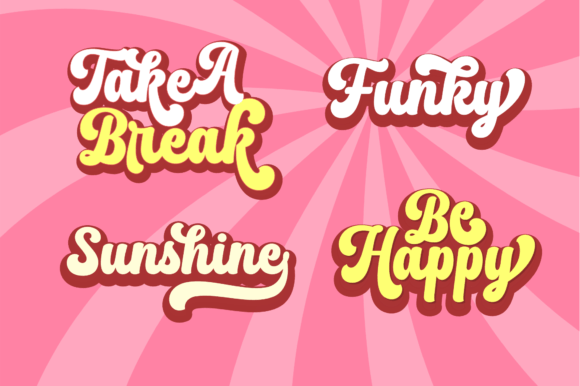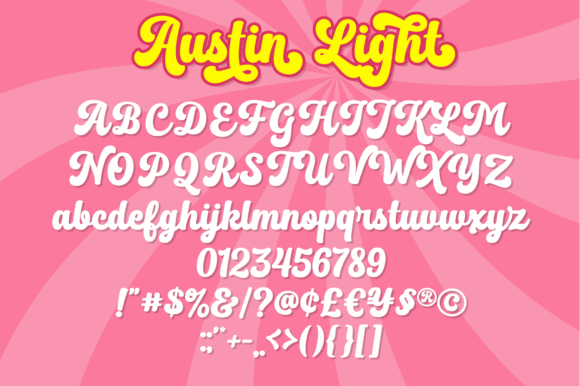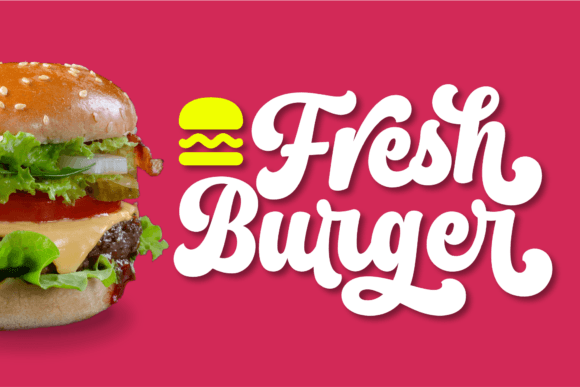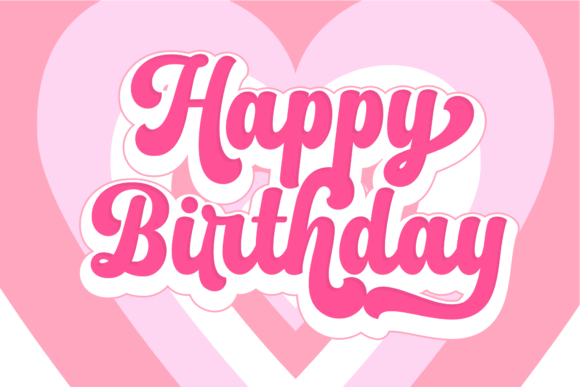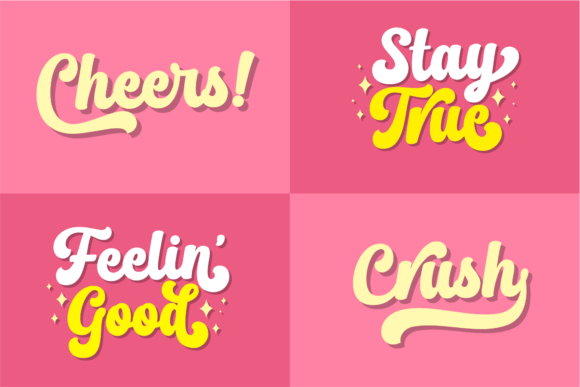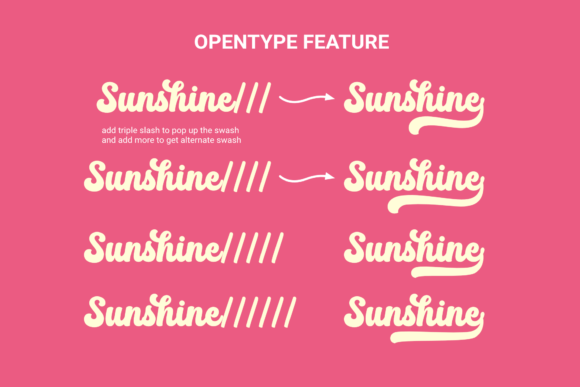
The Retro Charm of Austin Light Font: A Designer’s Delight
I’ll never forget the time I was working on a branding project for a trendy coffee shop. I had spent hours agonizing over the perfect logo design, but something was missing. The font I had chosen just wasn’t doing justice to the quirky, laid-back vibe of the shop. That’s when I stumbled upon Austin Light Font, and it was love at first sight! 💕
This bold and retro-styled script font has a cool flow that instantly elevates any design. Its beautiful and well-balanced characters make it a versatile choice that can match a wide pool of designs. In this article, I’ll share my honest review of Austin Light Font, provide a practical guide on how to use it, and explore similar fonts that you might love.
• 💥 **Bold and eye-catching**: Austin Light Font makes a statement with its bold and retro style.
• ✅ **Well-balanced characters**: The font’s characters are beautifully designed, ensuring that your text looks great in any context.
• 🔥 **PUA encoded**: With PUA encoding, you can access all the glyphs and swashes with ease, giving you endless creative possibilities.
• 🎨 **Versatile**: This font can match a wide range of designs, from modern and trendy to vintage and rustic.
• ⚠️ **Limited use in body text**: Due to its bold style, Austin Light Font might not be the best choice for lengthy body text. It’s perfect for headings, titles, and short paragraphs, but may not be as readable for larger blocks of text.
• 🤔 **Some characters may require manual adjustment**: Depending on the context, you might need to manually adjust the spacing or kerning of certain characters to achieve optimal results.
Austin Light Font was inspired by the retro charm of classic typography. Its designer aimed to create a font that would evoke the feeling of a bygone era, while still being modern and versatile. The result is a font that’s both nostalgic and fresh, perfect for designers who want to add a touch of personality to their work.
What is PUA encoding? PUA (Private Use Area) encoding allows you to access additional characters, glyphs, and swashes in a font, giving you more creative freedom.
Is Austin Light Font suitable for body text? While Austin Light Font is a beautiful font, it may not be the best choice for lengthy body text due to its bold style. It’s perfect for headings, titles, and short paragraphs.